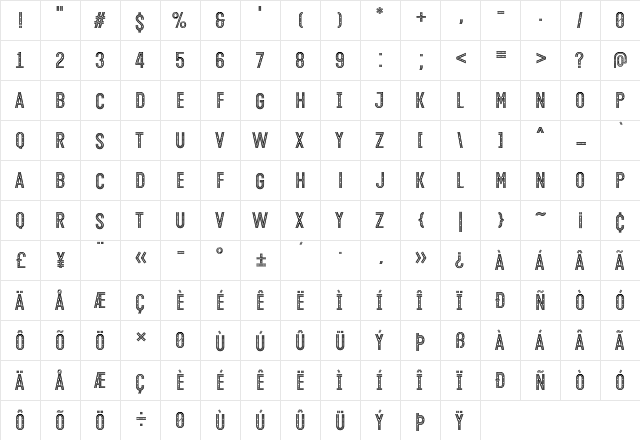
Open Minded Regular
| Foundry | 7NTypes |
| Designer | Situjuh Nazara |
Design Context for Open Minded Typeface
Open Minded is a composed and adaptable typeface that performs quietly and consistently across a wide range of design contexts.